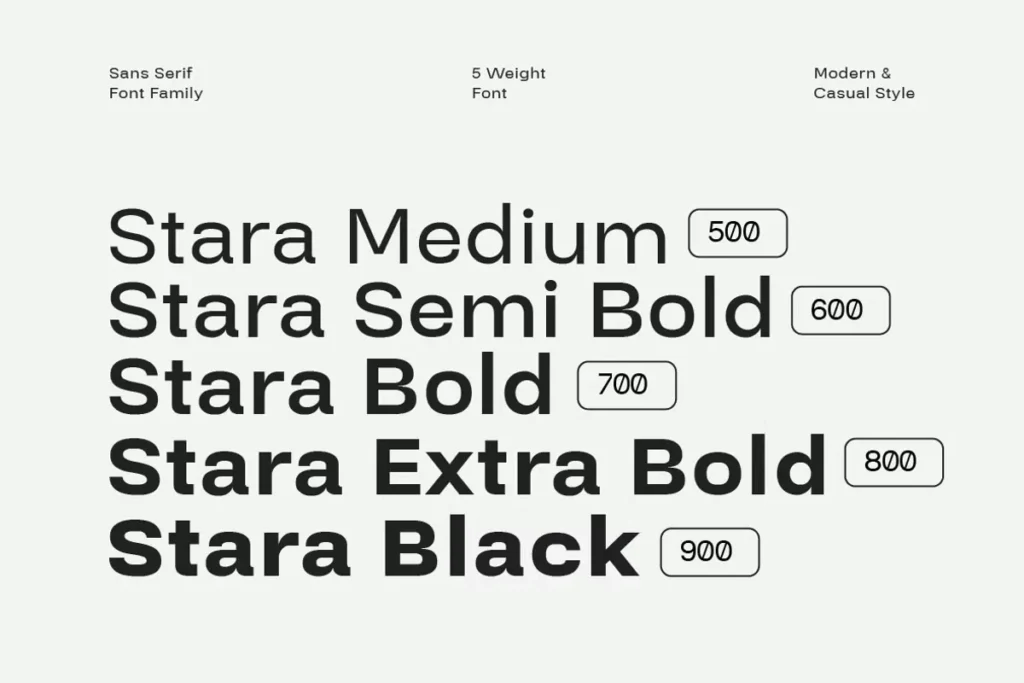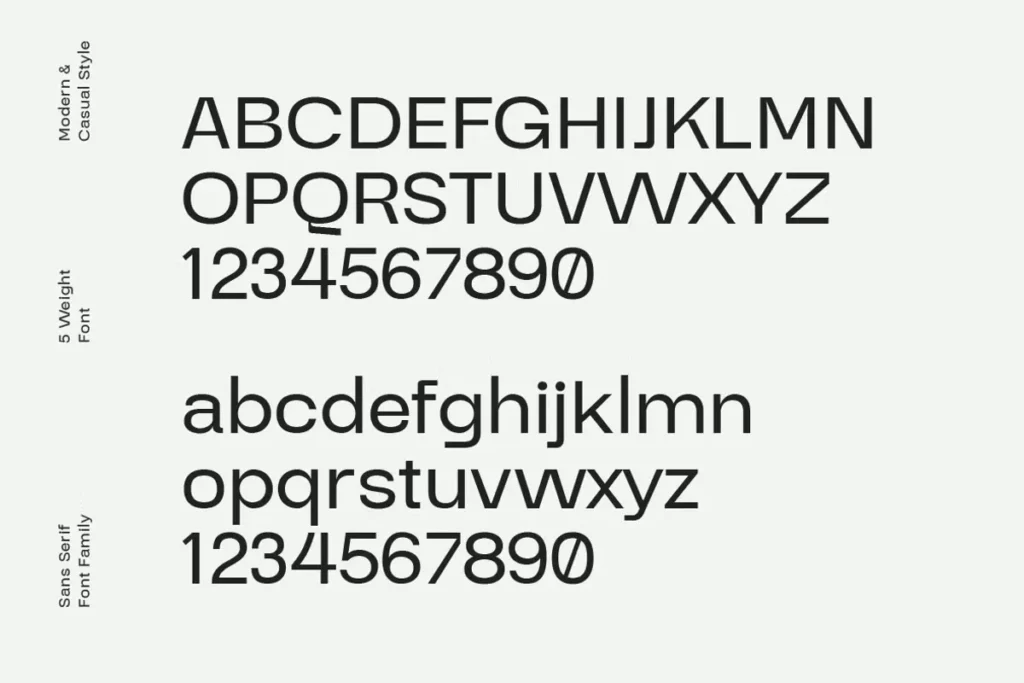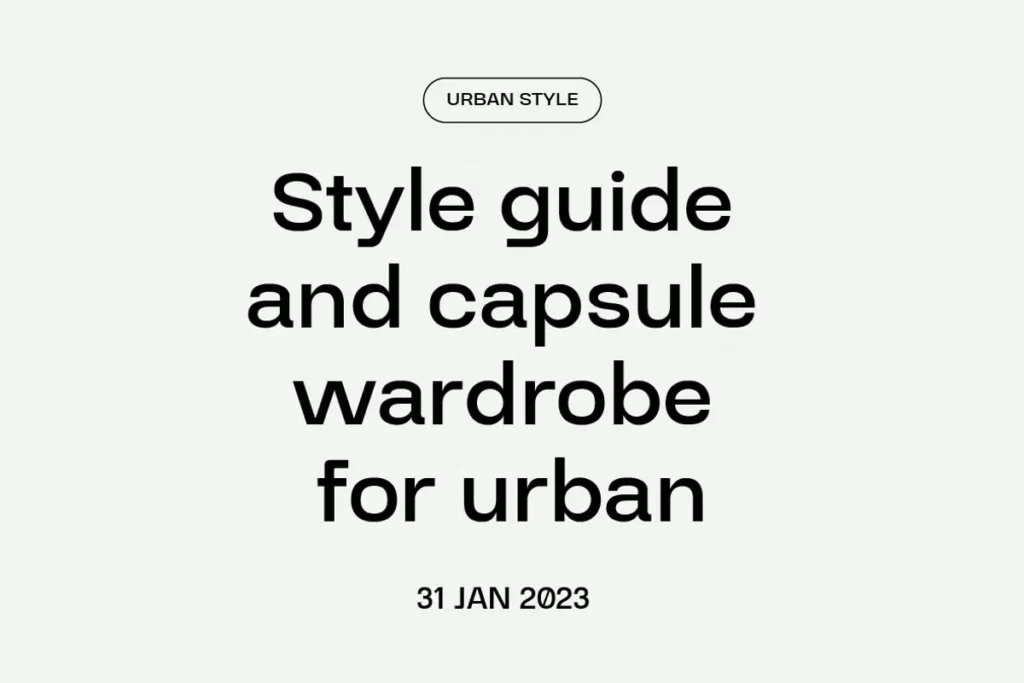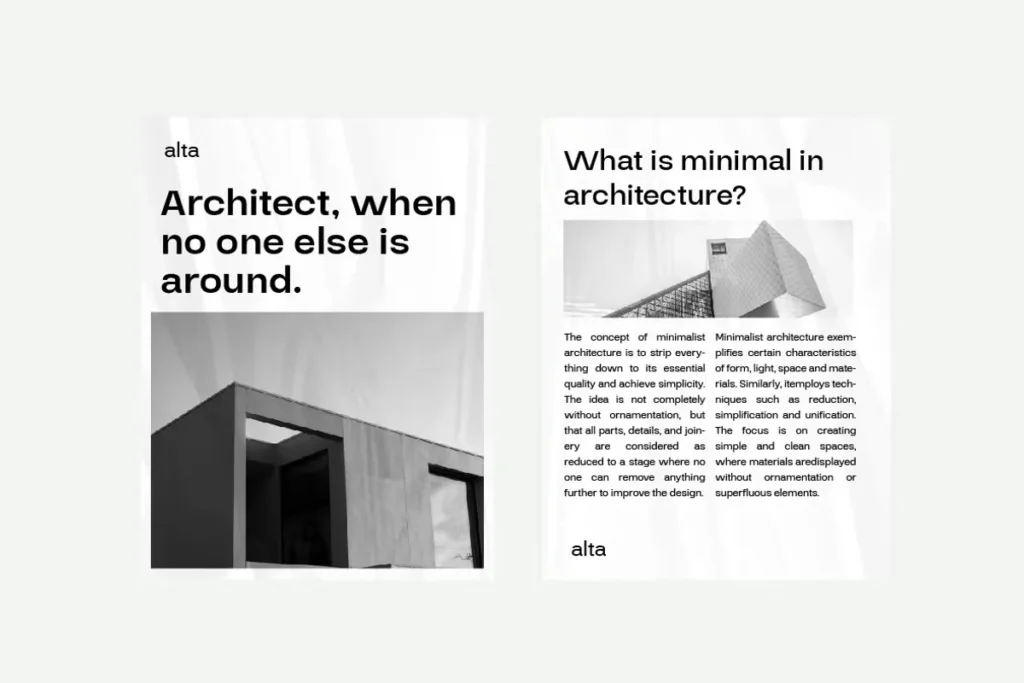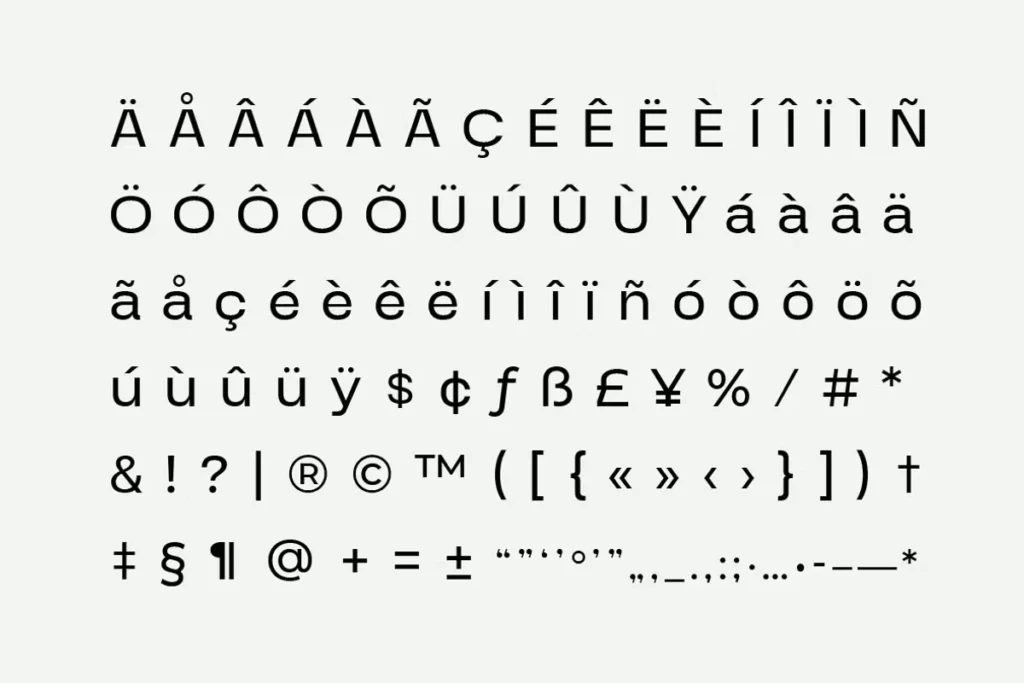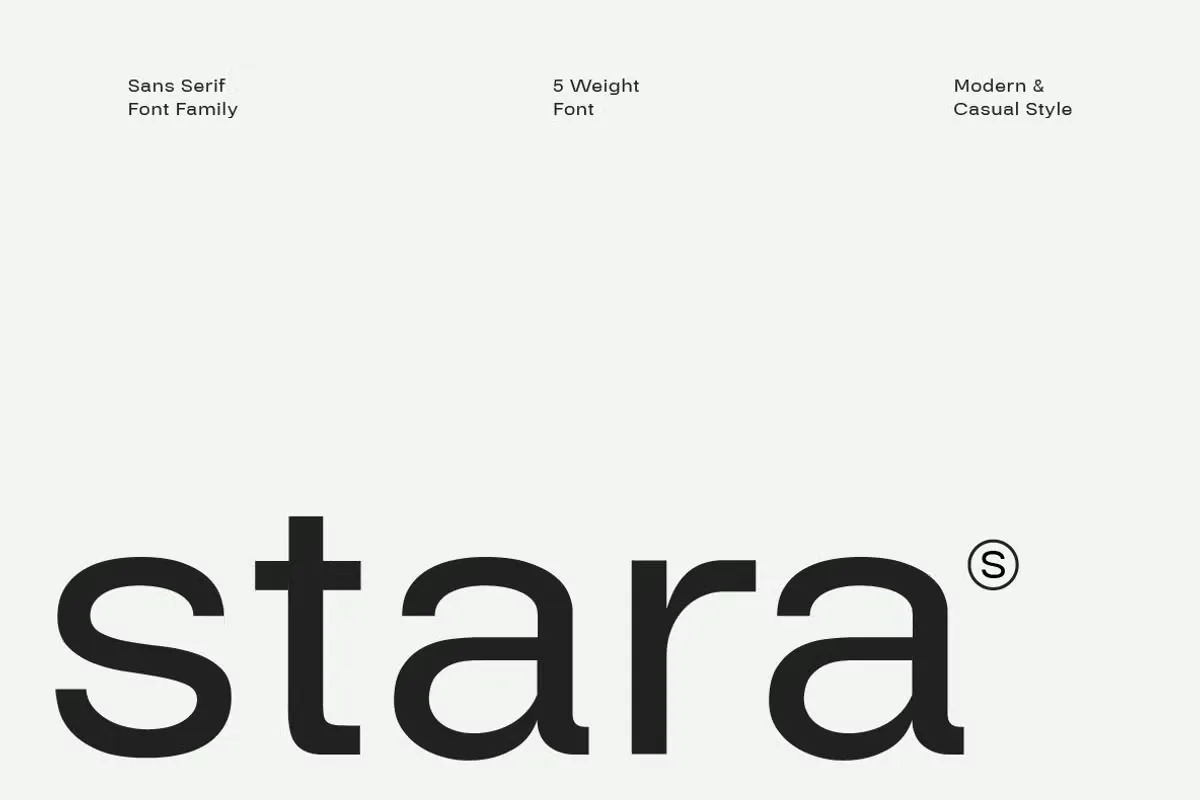
Stara Free Clean Sans Serif Font is a modern and versatile typeface designed by Yukita Creative. Combining clean lines, balanced proportions, and excellent readability, Stara delivers a professional yet elegant appearance that works beautifully across both print and digital projects. Whether you’re designing a logo, website, branding materials, social media graphics, presentations, or editorial layouts, this font provides a timeless aesthetic that enhances every design.
The Stara font family includes multiple weights, from Medium to Black, along with matching italic styles, allowing designers to create visually appealing typography with flexibility and consistency. Its minimalist grotesk-inspired style makes it suitable for startups, luxury brands, creative agencies, corporate identities, packaging, and modern UI/UX projects.
With carefully crafted letterforms and refined spacing, Stara ensures outstanding legibility at both small and large sizes. The font’s clean and sophisticated design makes it an excellent choice for headlines, body text, marketing materials, posters, and digital interfaces.
Stara Free Clean Sans Serif Font